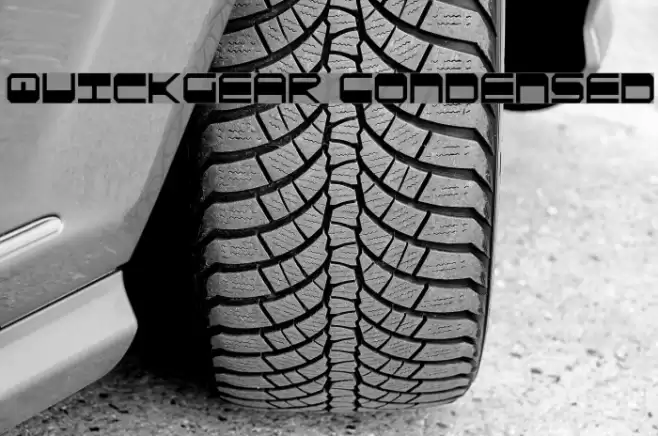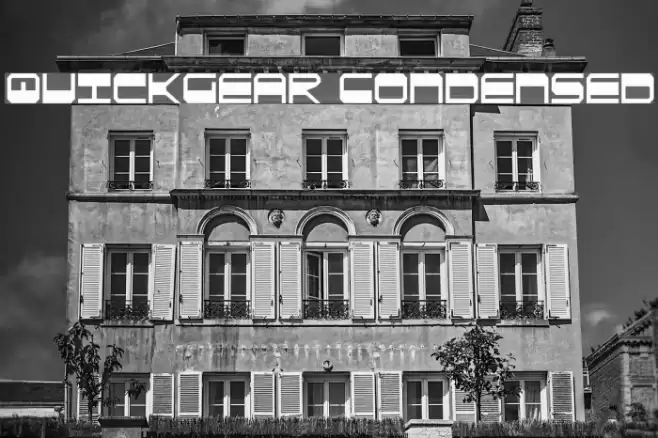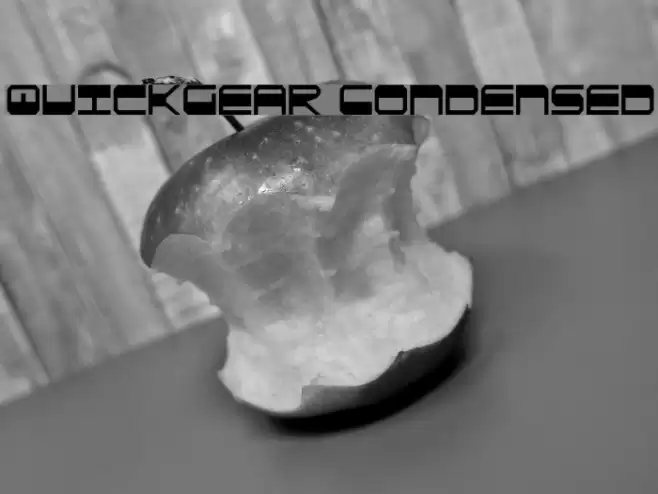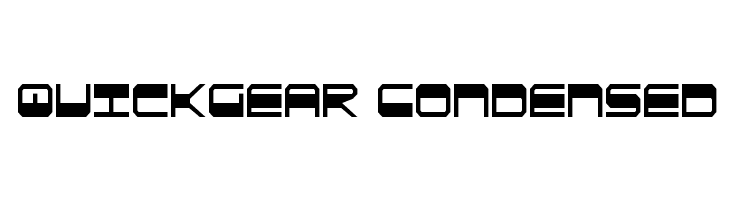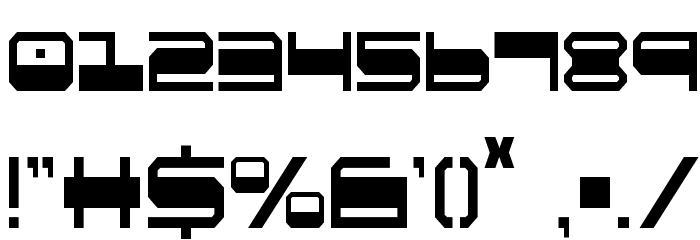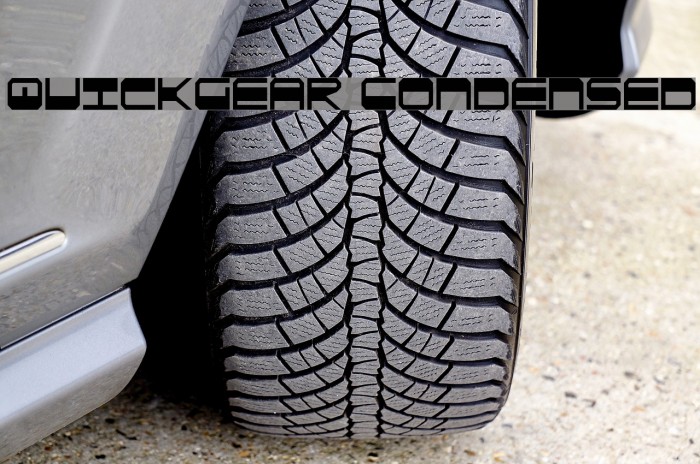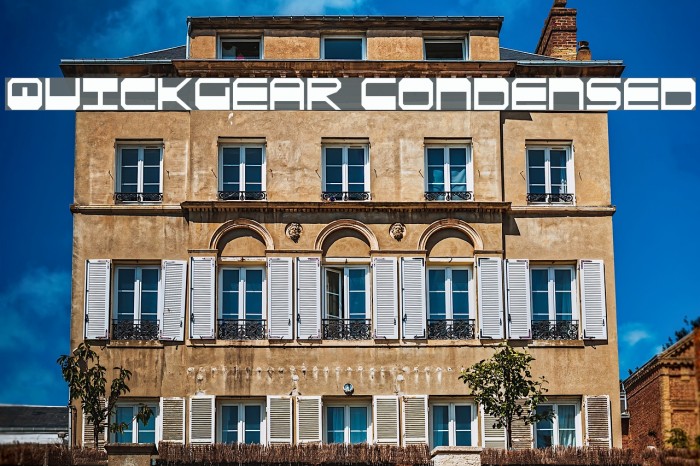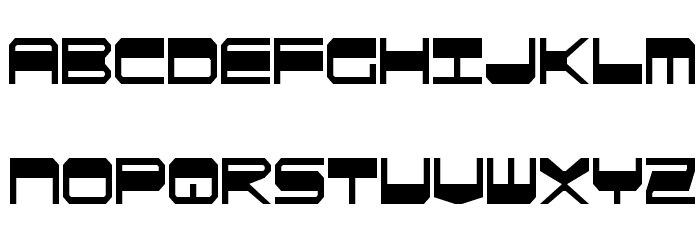
QuickGear Condensed Font
QuickGear Condensed Description
This font features a bold, geometric design with a futuristic and industrial feel. The characters are constructed with sharp angles and straight lines, giving it a mechanical and tech-inspired appearance. The uppercase and lowercase letters maintain a consistent style, with a condensed width that enhances its compact look. The numerals and special characters follow the same design principles, ensuring uniformity across all glyphs. This font is ideal for projects that require a modern and edgy aesthetic, such as technology branding, video game titles, or sci-fi themed designs.
A bold, geometric font with a futuristic, industrial style from Images & Symbols fonts.
- Proposed Projects: Ideal for technology branding, video game titles, and sci-fi themed designs.
- Overall Style: Futuristic, Industrial
- Use Case: Logos, Headlines